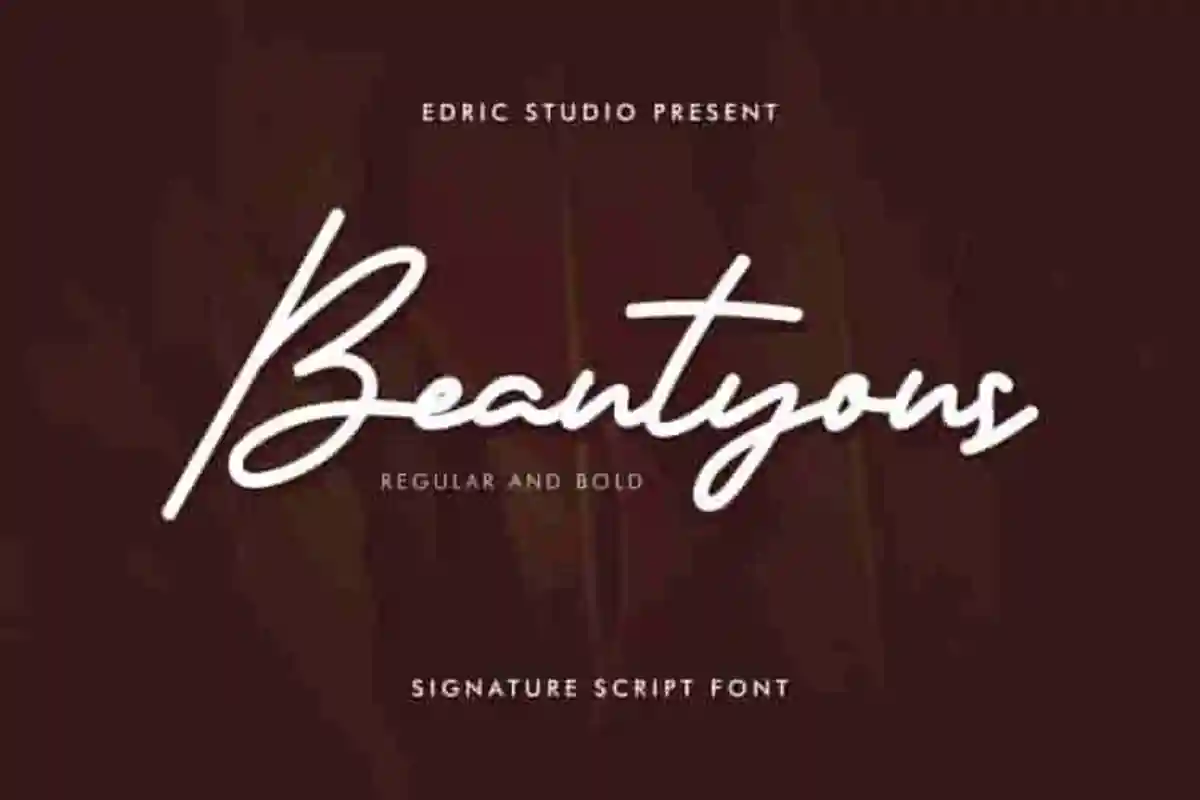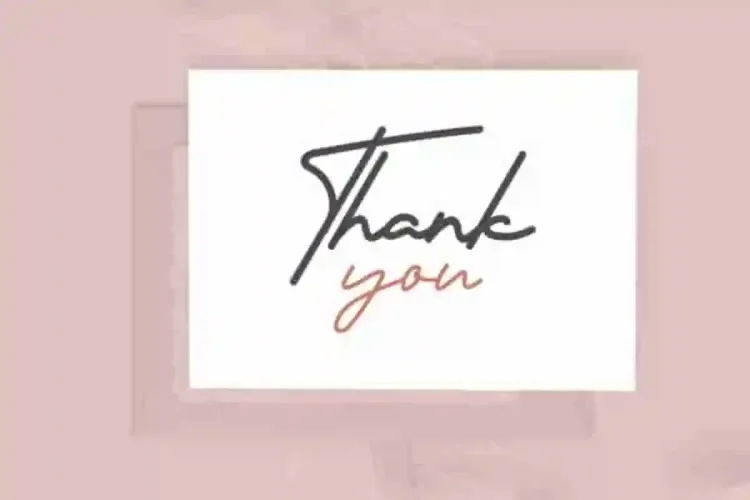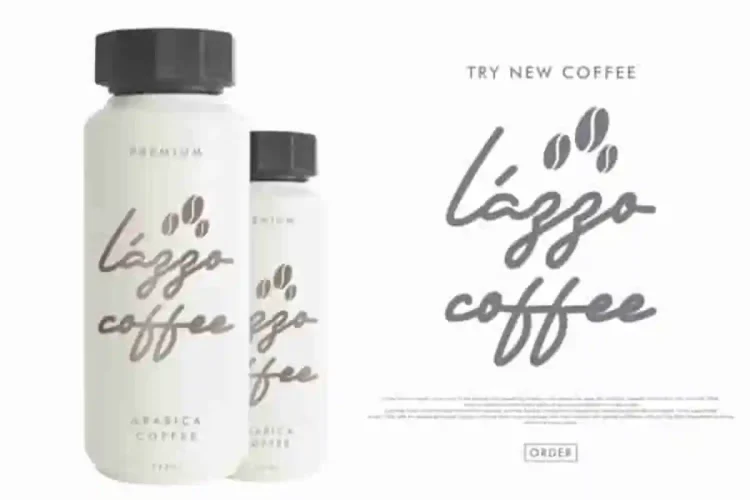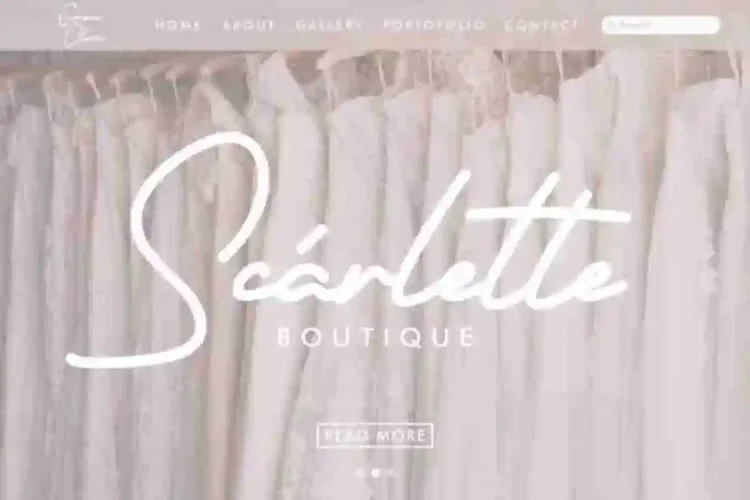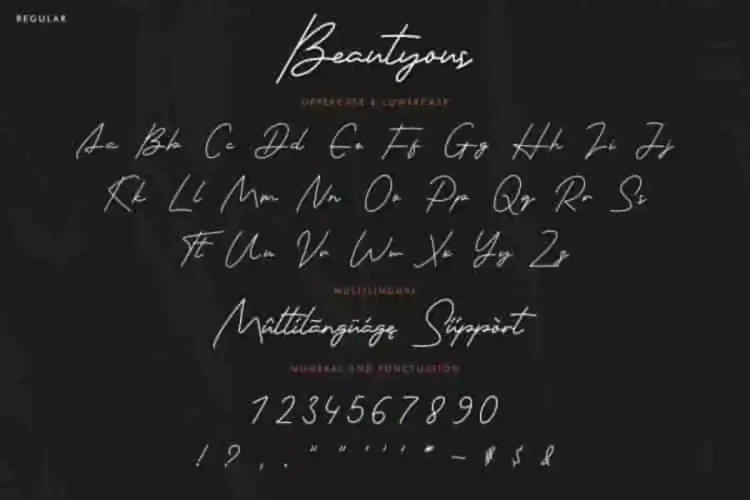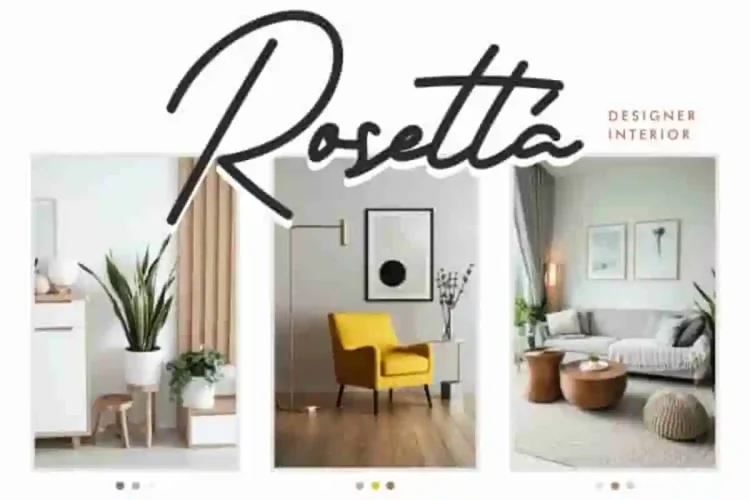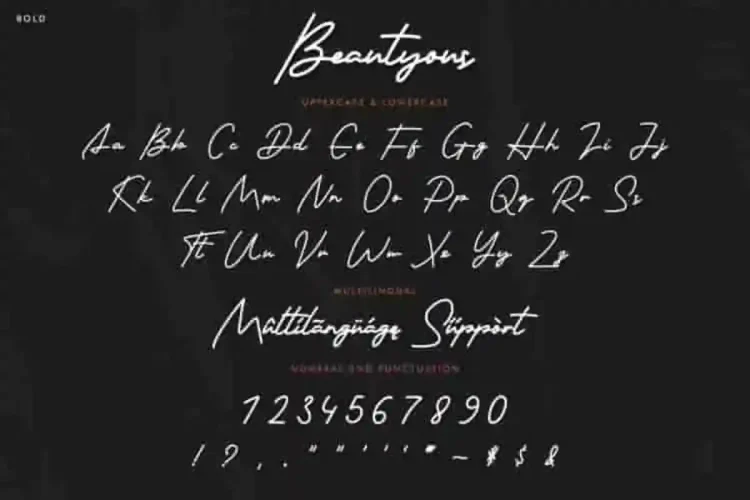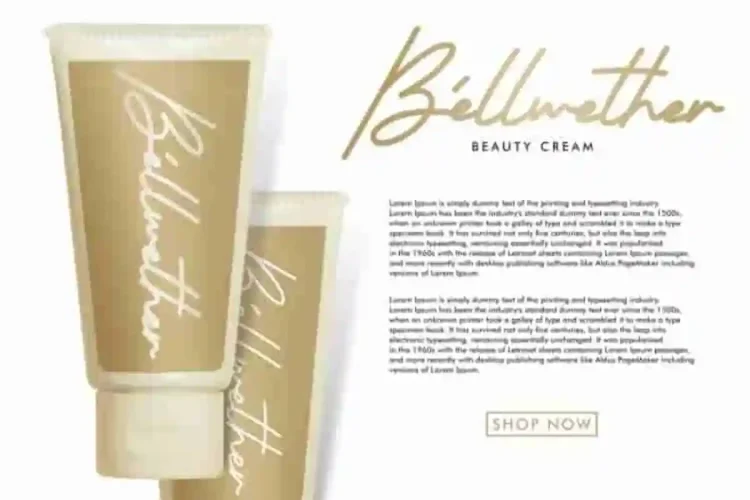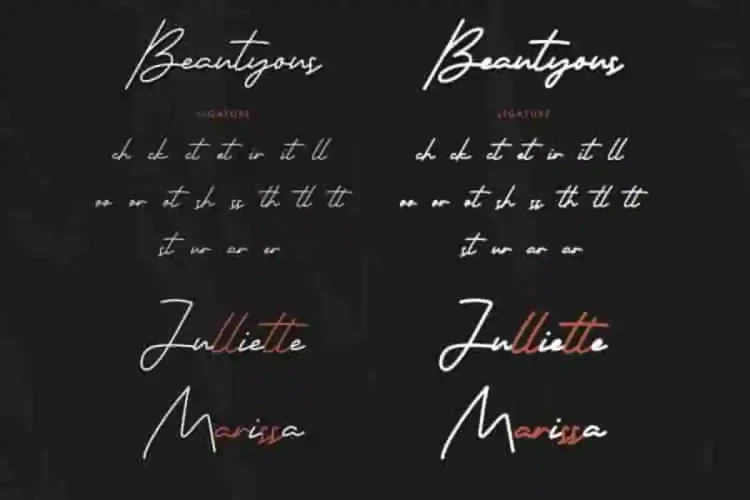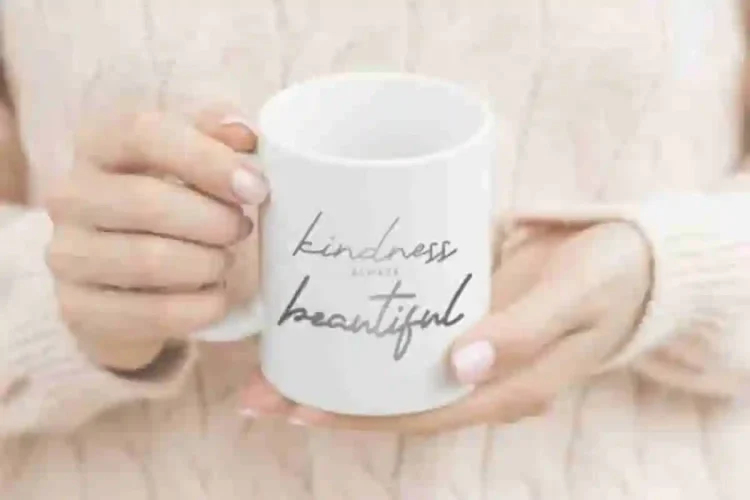
Beautyous Handwritting Signature Font
Beautyous Signature Font is a bold signature font script with elegant handwriting style, handcrafted from our Studio here in, Indonesia. The designers of this beautiful typeface is Widi and Sarah.
Beautyous Signature Font is an original handwritten signature typeface with unique natural look. It has a stunning characters set, perfectly managed with well spaced and kerning. Designed with a bold yet graceful touch, it embodies simplicity, elegance, and timeless charm.
Beautyous Signature Font will be great for any projects (with extended license) including : branding, logo, stationery, business card, signage, flyer, brochure etc. Almost all industries will be match for this typeface: wedding, events, real estate, architect, law firm, florist, gardening, makeup artist, travel, hotel, musician etc.